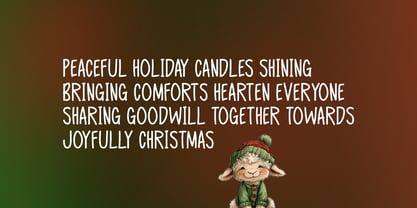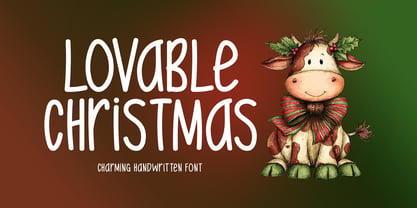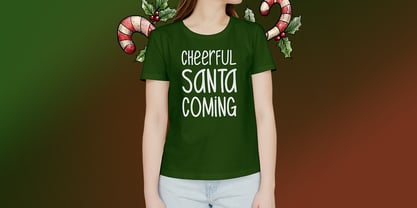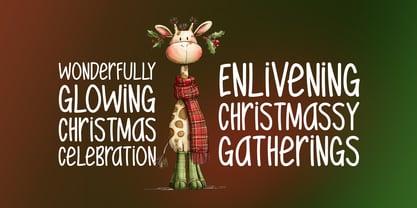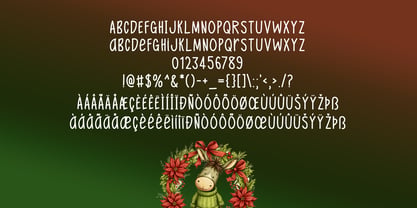
Lovable Christmas
by Seemly Fonts
The Lovable Christmas Font Family was designed by Md. Sohail Bhuiyan and published by Seemly Fonts. Lovable Christmas contains 1 styles. More about this family
Lovable Christmas is a delightful handwritten font filled with festive charm and warm personality. Its smooth, playful strokes make it an excellent choice for holiday-themed projects such as greeting cards, t-shirts, invitations, posters, music covers, and web graphics. Whether you're designing for Christmas celebrations or adding a cheerful touch to everyday creations, Lovable Christmas brings joy, coziness, and a handcrafted feel to every design.
Designers: Md. Sohail Bhuiyan
Foundry: Seemly Fonts